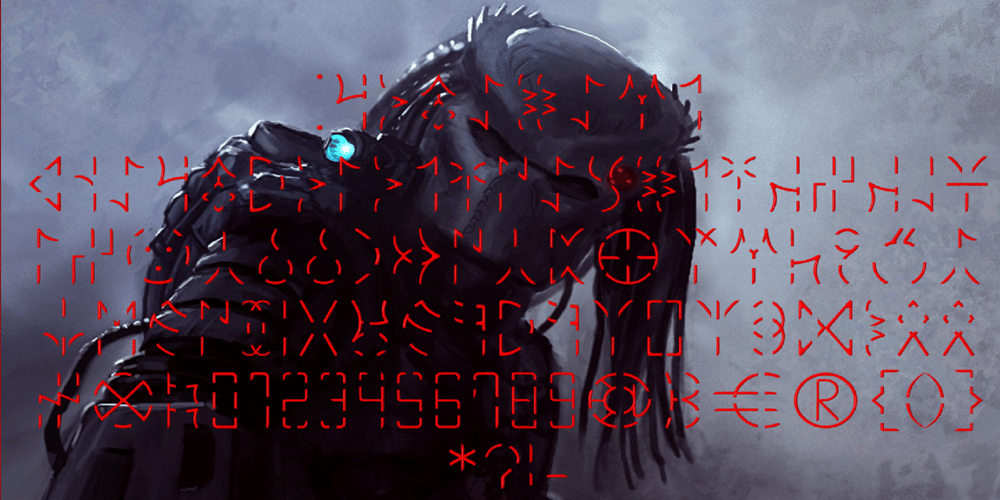
Ongunkan Old Turkic Predetor Font Family was designed by Osman Nuri ALKAN and published by Runic World Tamgacı. Ongunkan Old Turkic Predetor contains 1 styles and family package options. The version of the script belonging to the languages of the fantastic Predator aliens, adapted to the old Turkish runic script. Looks great with the red color.